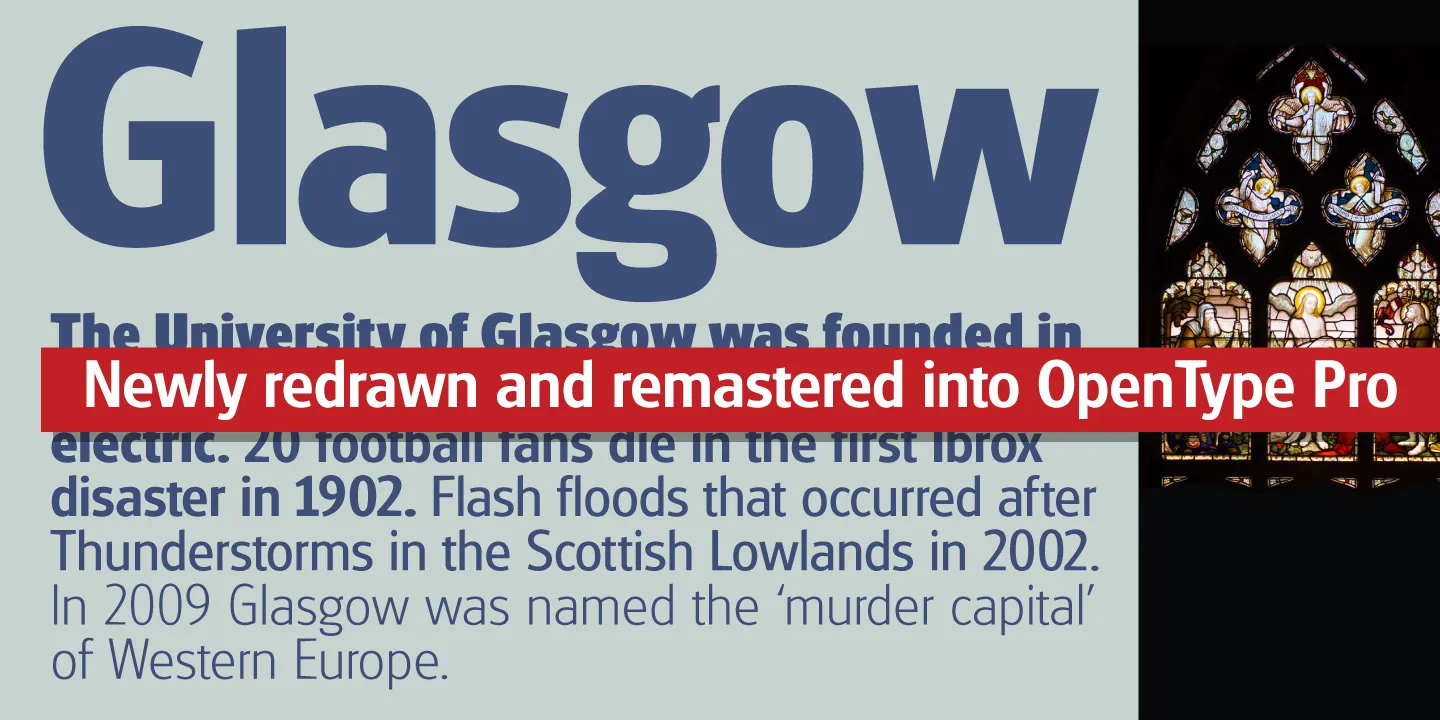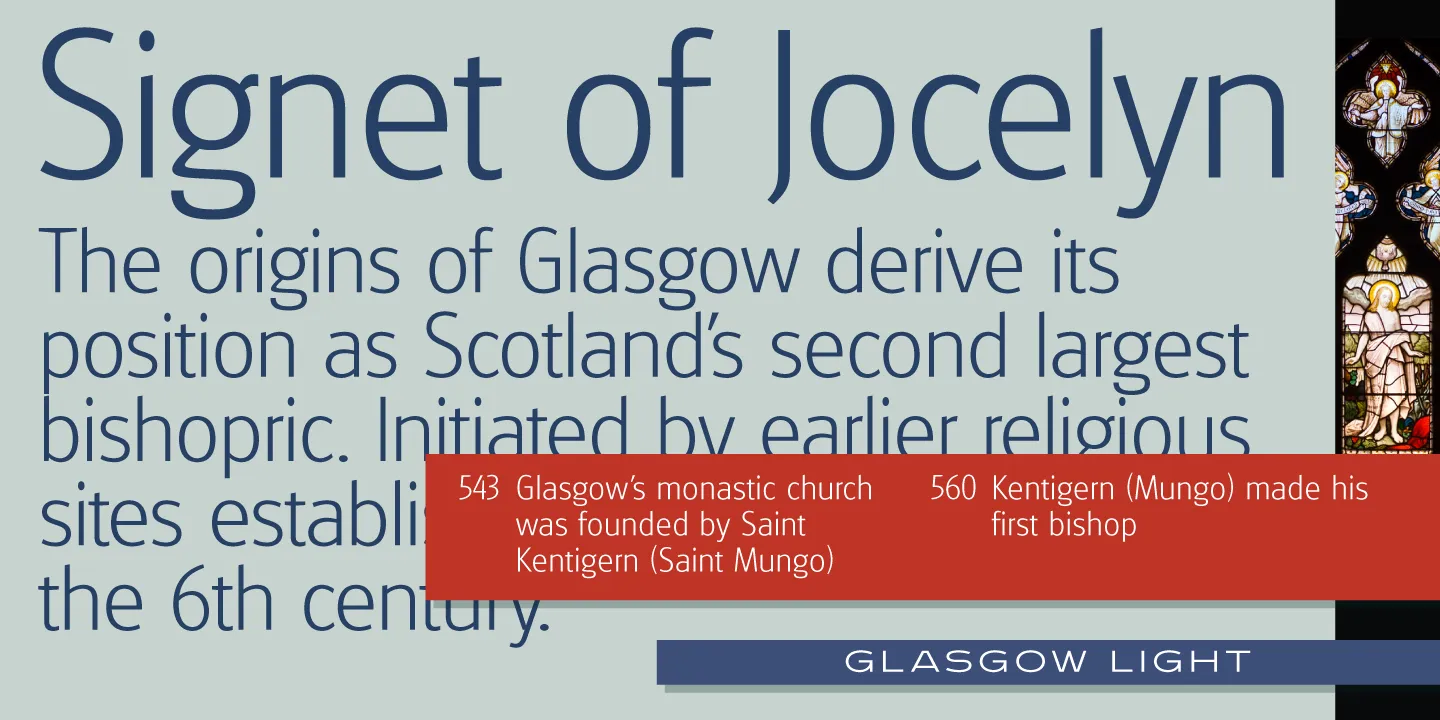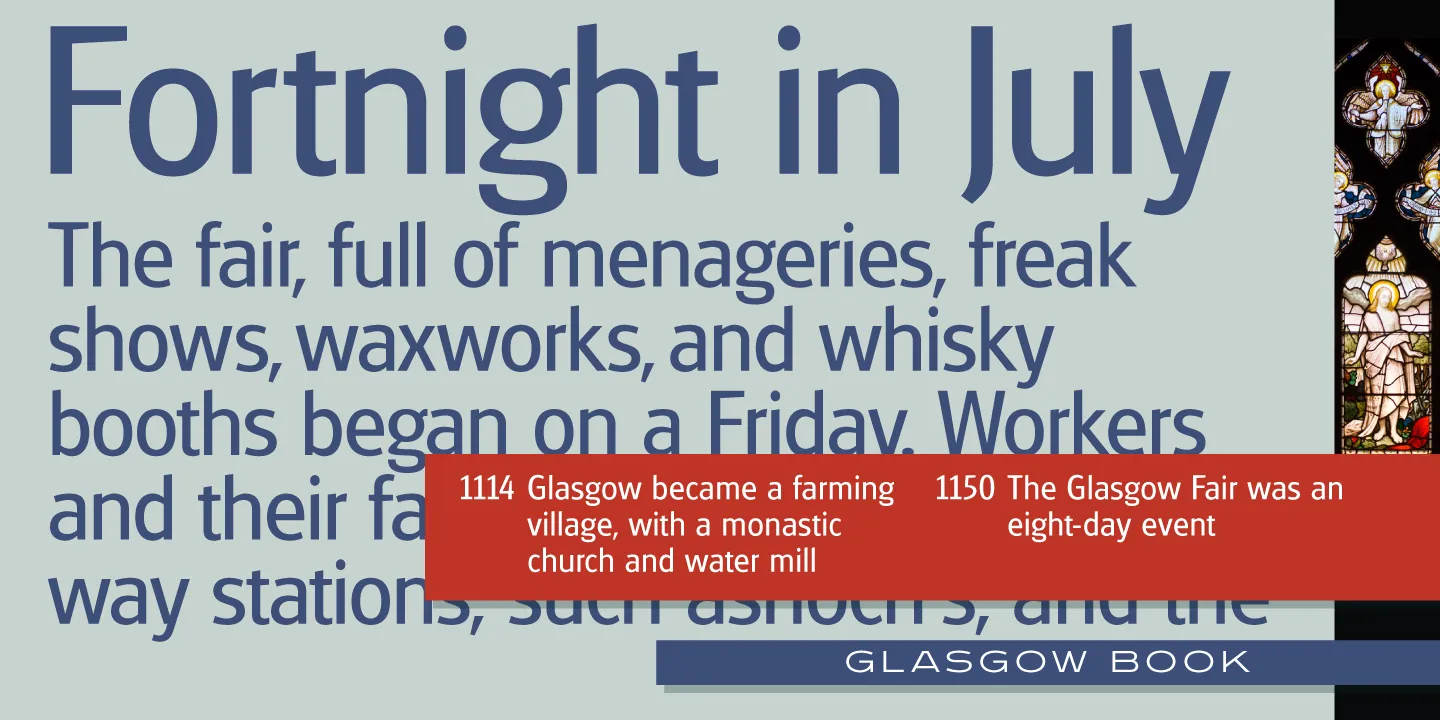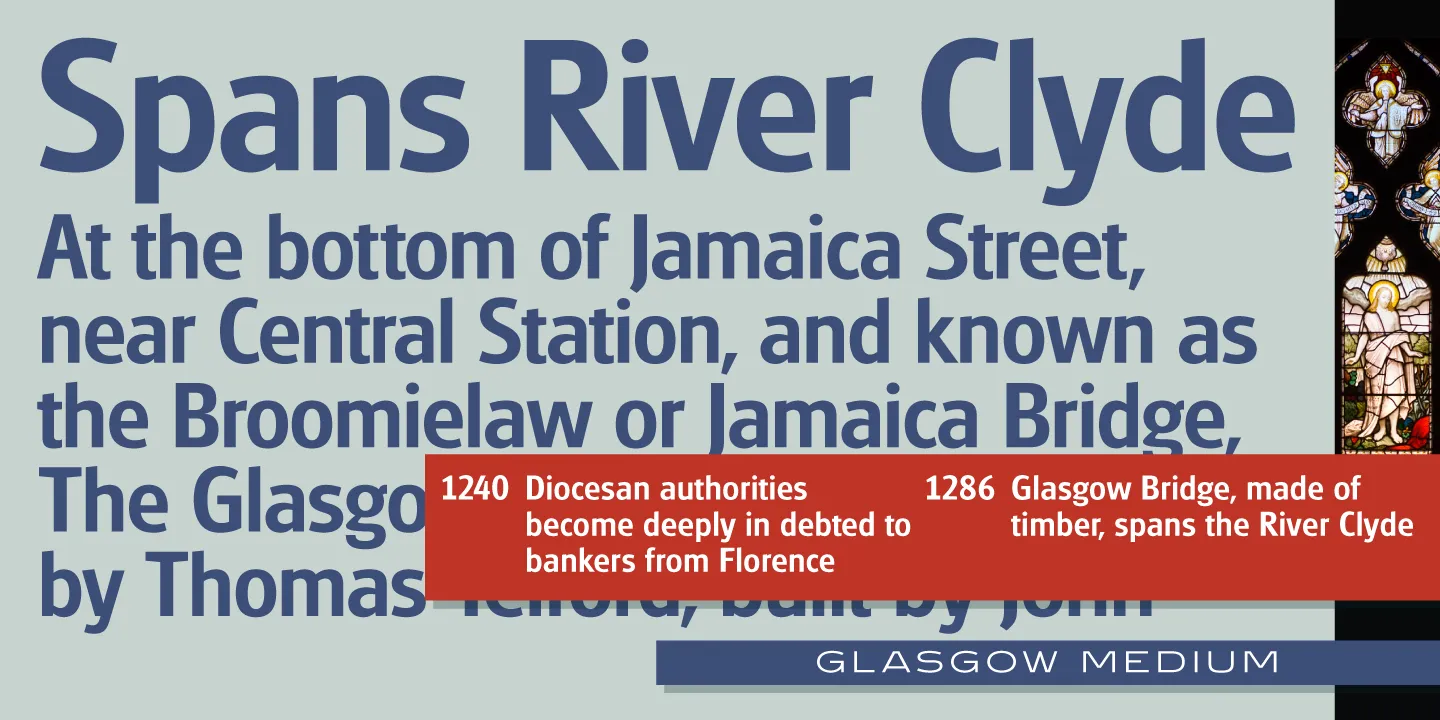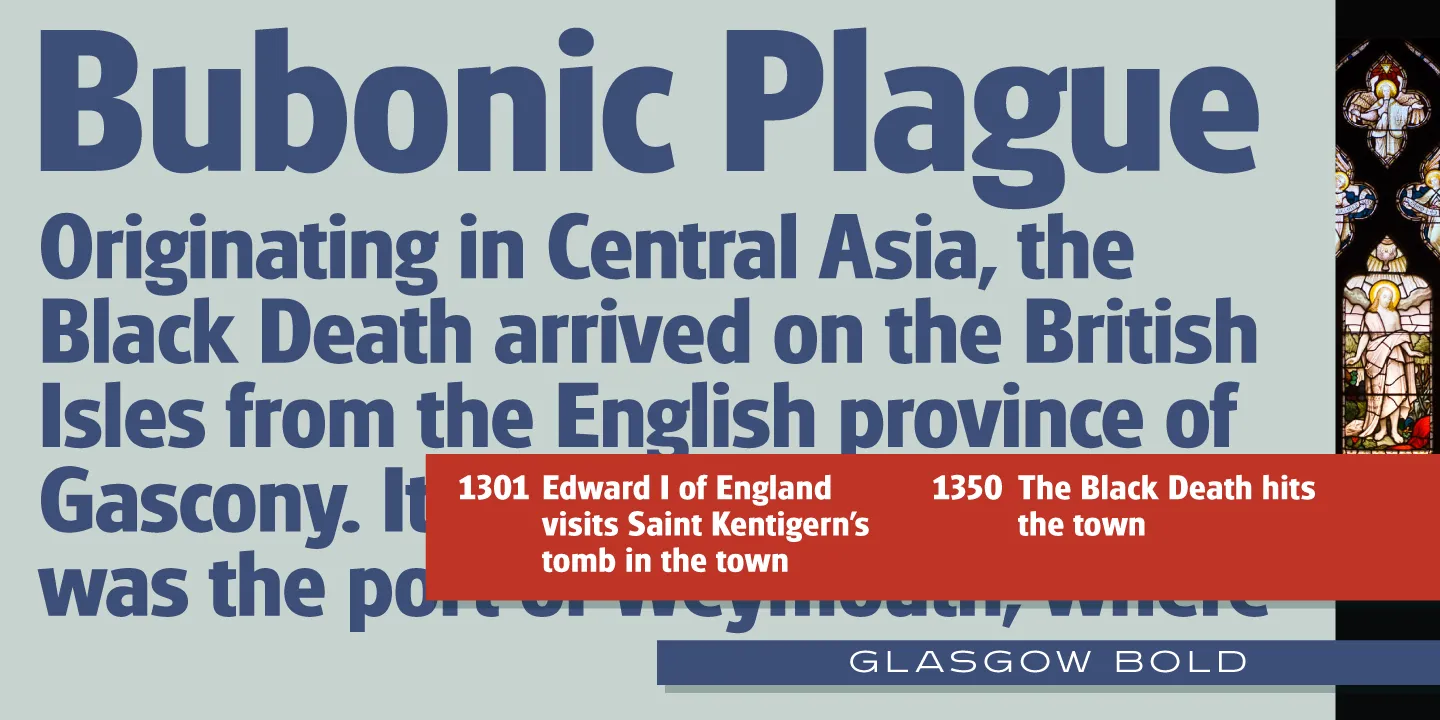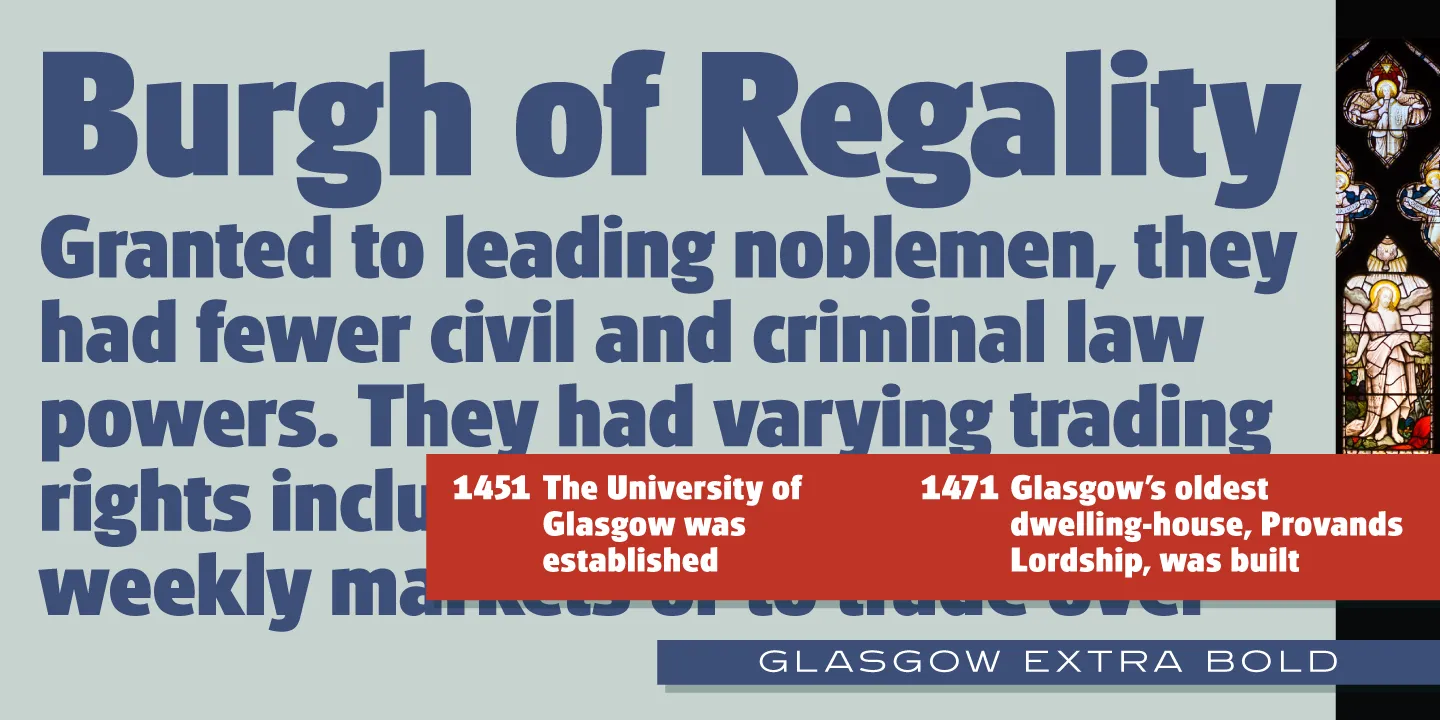
Glasgow Font Family
Glasgow is a humanist sans serif font family, and was exclusively licensed from the Quick Brown Fox (QBF) Collection, Germany. It was completely redrawn and produced by Steve Jackaman (ITF) and Ashley Muir in 2010. Glasgow has a modern feel, and was optimized for legibility at all sizes. Whether it be a tiny paragraph of text or a headline on a billboard, Glasgow will be sure to get your message out crystal clear.
OpenType Features
• Common Ligatures
• Fractions
• Ordinal Numerals
• Subscript
• Superscript